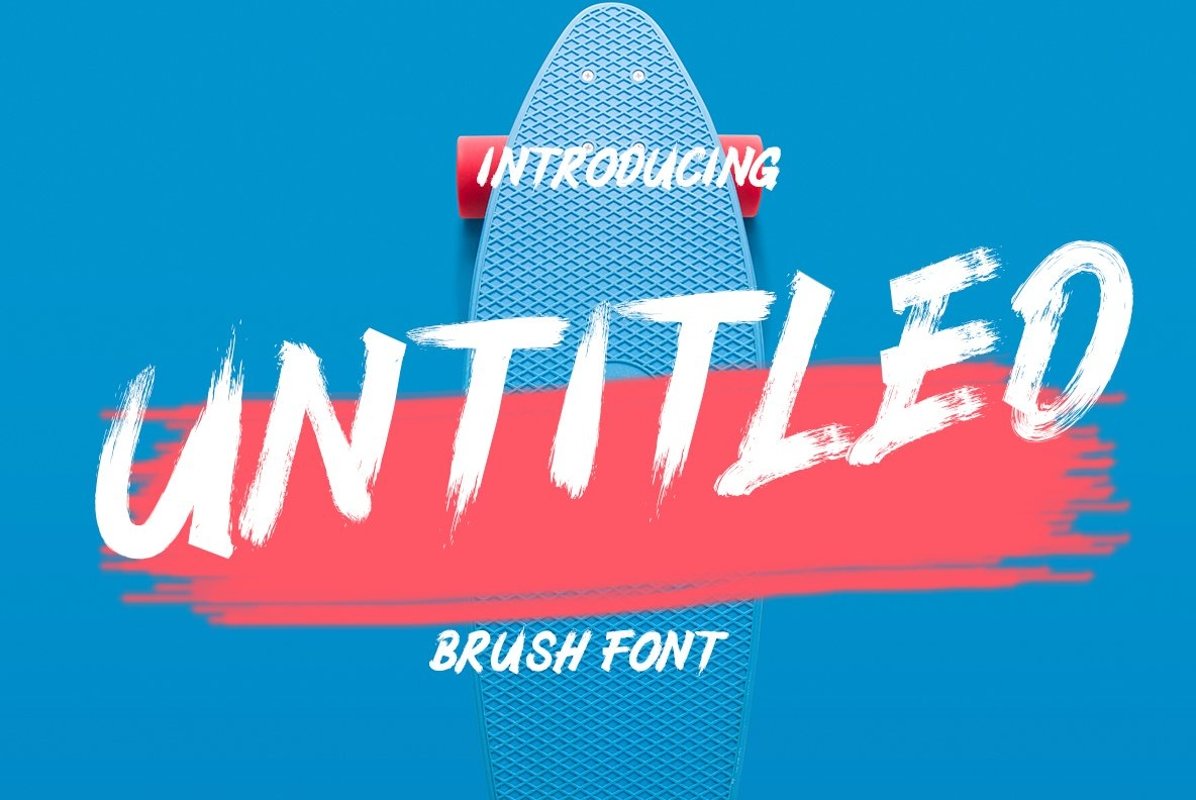
Untitled Brush Font
Untitled
Untitled is a unique textured brush font, contemporary approach to design, natural handmade with irregular base lines. Suitable for use in title design. Such as clothing, magazines, book titles, stationery designs, quotes, branding, logos, greeting cards, t-shirts, packaging designs, posters, snapbacks and much more.